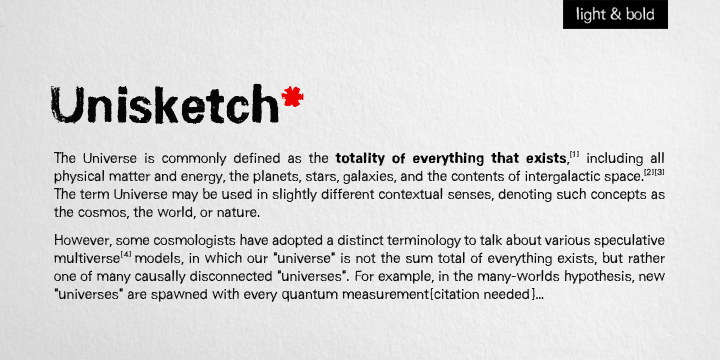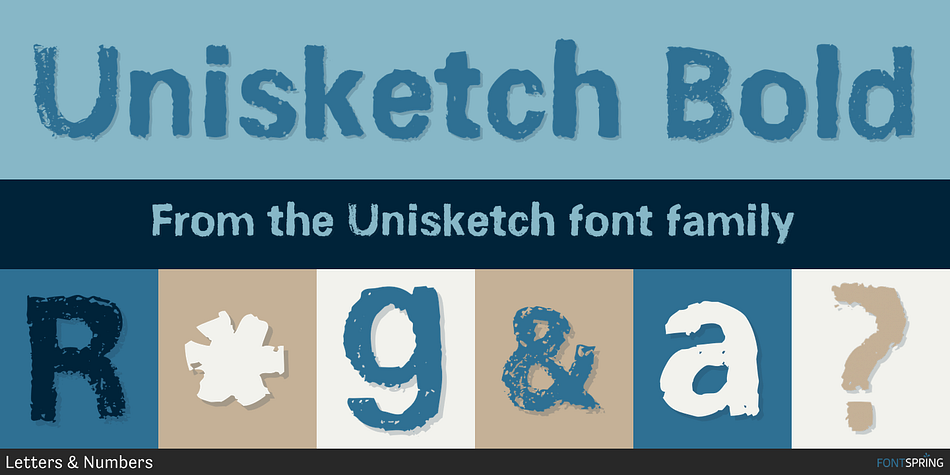
Unisketch Bold
Unisketch is a grunge font family. This typeface has two styles and was published by Letters & Numbers.
Unisketch is an homage to my favorite font Univers when I was at design college.
Unisketch is an homage to my favorite font Univers when I was at design college. Univers is a neo grotesk font by famous Swiss typeface designer Adrian Frutiger.
Unisketch, with its worn, misaligned and slightly tilted characters, still retains some of the qualities that workhorse body copy requires: It is legible at small sizes and produces a compact ‘Schriftbild’.